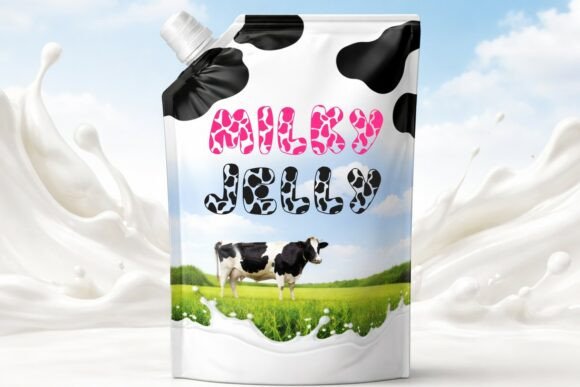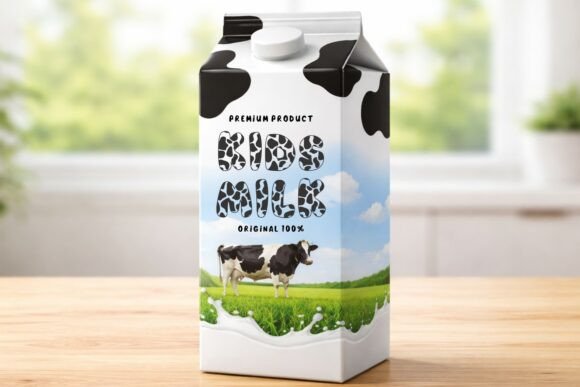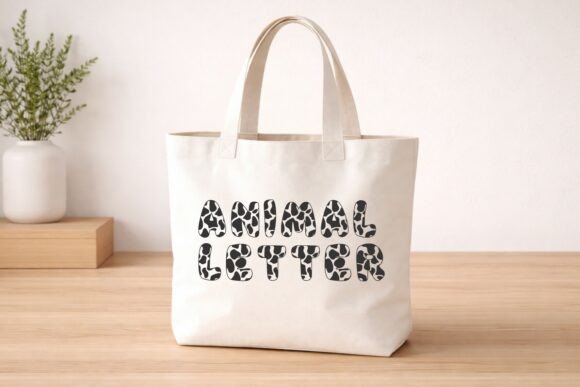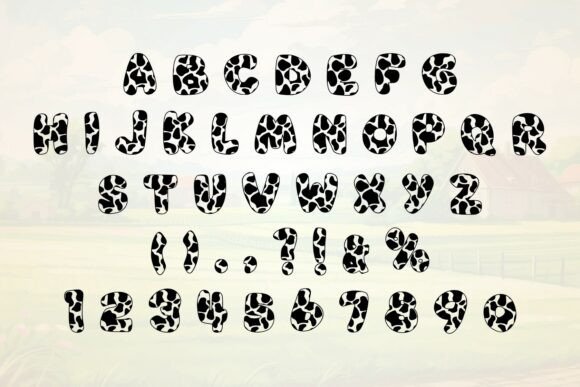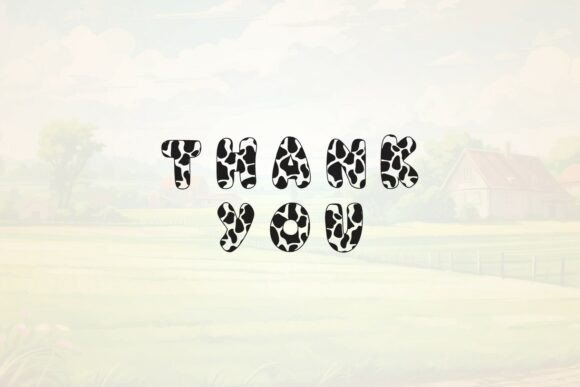
Introduction to Cute Milky Font
Do you remember the excitement of designing a project for a special occasion, only to be stuck on finding the perfect font to match your vision? For designers, a great font can make all the difference between a good design and a great one. And, let’s be honest, who wouldn’t want their designs to stand out with a dash of whimsy and charm?
Enter Cute Milky Font, a delightful display font that brings a smile to your face and a touch of playfulness to your designs. Inspired by the sweet simplicity of farm-themed charm, this font is a treasure trove of creative possibilities, perfect for kids’ projects, nursery designs, and farm branding.
With its bold, rounded letterforms and unique animal print style, Cute Milky Font is a high-quality design resource that’s sure to bring a fresh perspective to your work. Whether you’re working on a design project with a transparent background or need a free download for your next creative endeavor, this font is a valuable addition to any designer’s toolkit.
Key Features of Cute Milky Font
- High-quality, hand-drawn design perfect for creative projects and personal use.
- Comes in a transparent background, allowing for easy integration with any design resource.
- Features a unique, whimsical style that is sure to add a touch of personality to any design project.
Honest Review: Cute Milky Font
As a designer, I’m always on the lookout for unique and high-quality design resources to elevate my creative projects. The Cute Milky Font is one such resource that caught my attention.
What works well: ✨ The font is incredibly versatile and can be used for a wide range of projects, from digital art to print designs. The transparent background feature makes it easy to integrate with other design elements. Additionally, the font is available for free download, making it a valuable resource for designers on a budget.
- High-quality design with a unique aesthetic
Overall, I’m impressed with the Cute Milky Font and its potential to enhance creative projects. While it may have some limitations, its unique design and free download make it a valuable resource for designers looking to add a touch of personality to their work.
Tips for Getting the Most Out of Cute Milky Font
For the best results, use Cute Milky Font in conjunction with other design resources, such as graphics and images. Experiment with different font sizes and styles to create a unique and visually appealing design.
Common Use Cases for Cute Milky Font
Cute Milky Font is ideal for a variety of creative projects, including blog posts, social media graphics, and business presentations. Its transparent background makes it easy to use in conjunction with other design elements.
No, the Cute Milky Font has a solid background and is not designed with a transparent background. However, you can easily customize the font to fit your design needs using various design tools and software.
Q: Can I modify the Cute Milky Font to suit my design project?
Yes, the Cute Milky Font is a highly customizable design resource that can be modified to suit your specific design needs. You can adjust the font’s size, color, and style using various design software and tools, making it a versatile addition to any creative project.